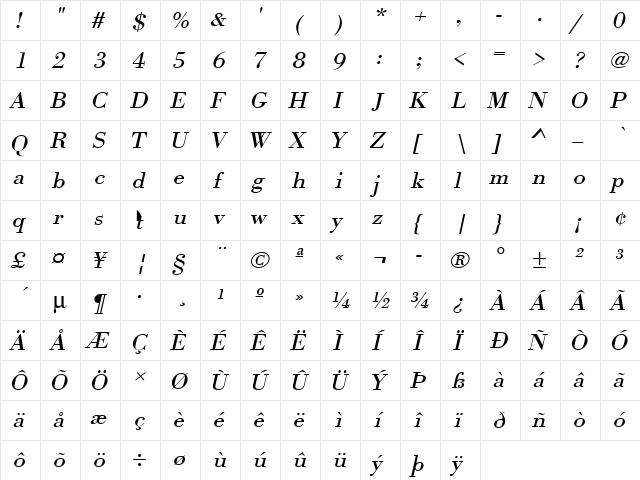
URWBodoniTExtWid Oblique
Design Context for URWBodoniTExtWid Typeface
URWBodoniTExtWid offers clean, dependable letterforms without strong stylistic allegiance, making it a practical choice for designers who need flexibility. Its italic angle brings a sense of urgency and motion to the letterforms.
Pro Tip: Try URWBodoniTExtWid for annotation and caption copy alongside an upright companion — the contrast in angle creates a dynamic but ordered typographic system.